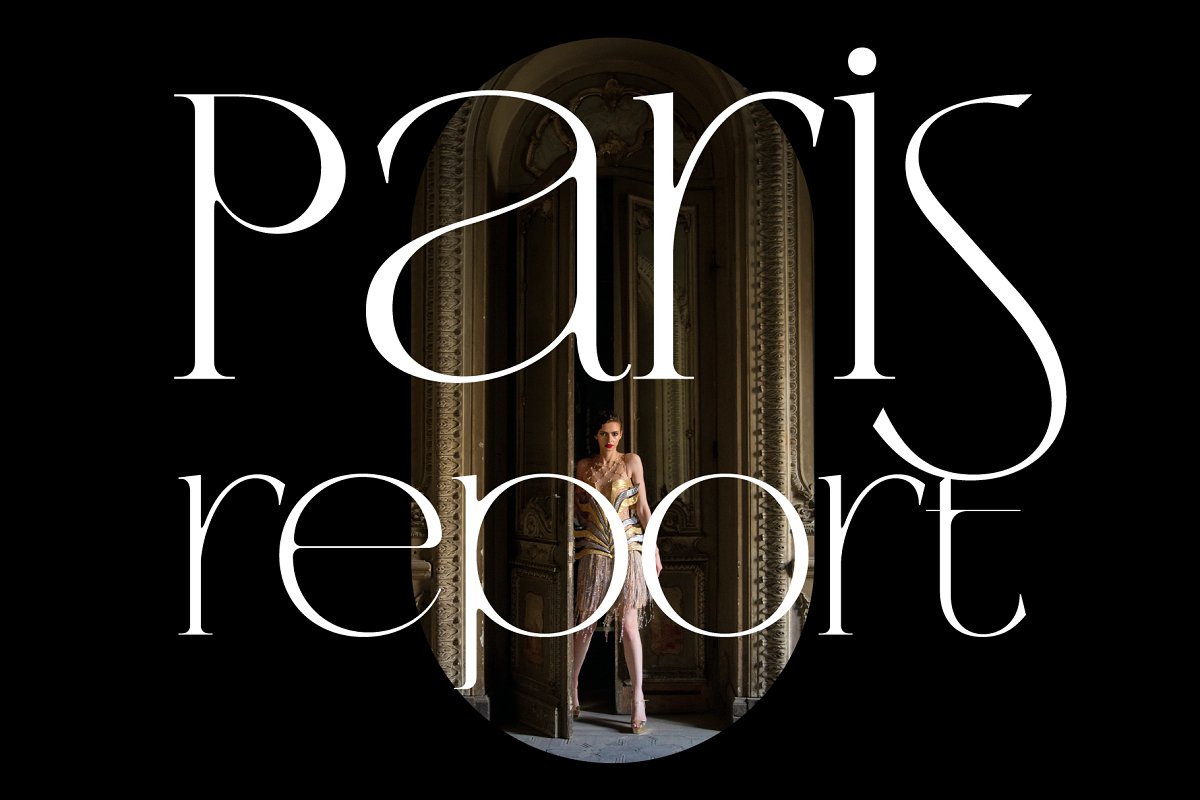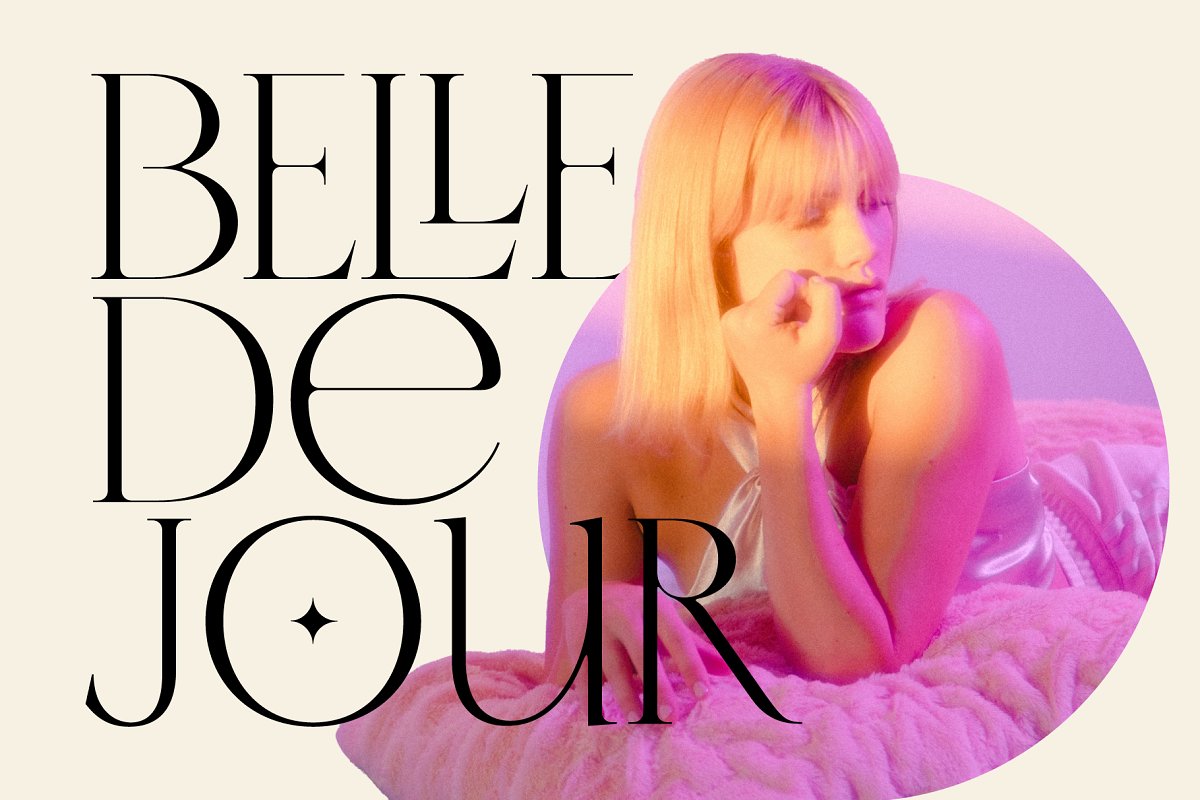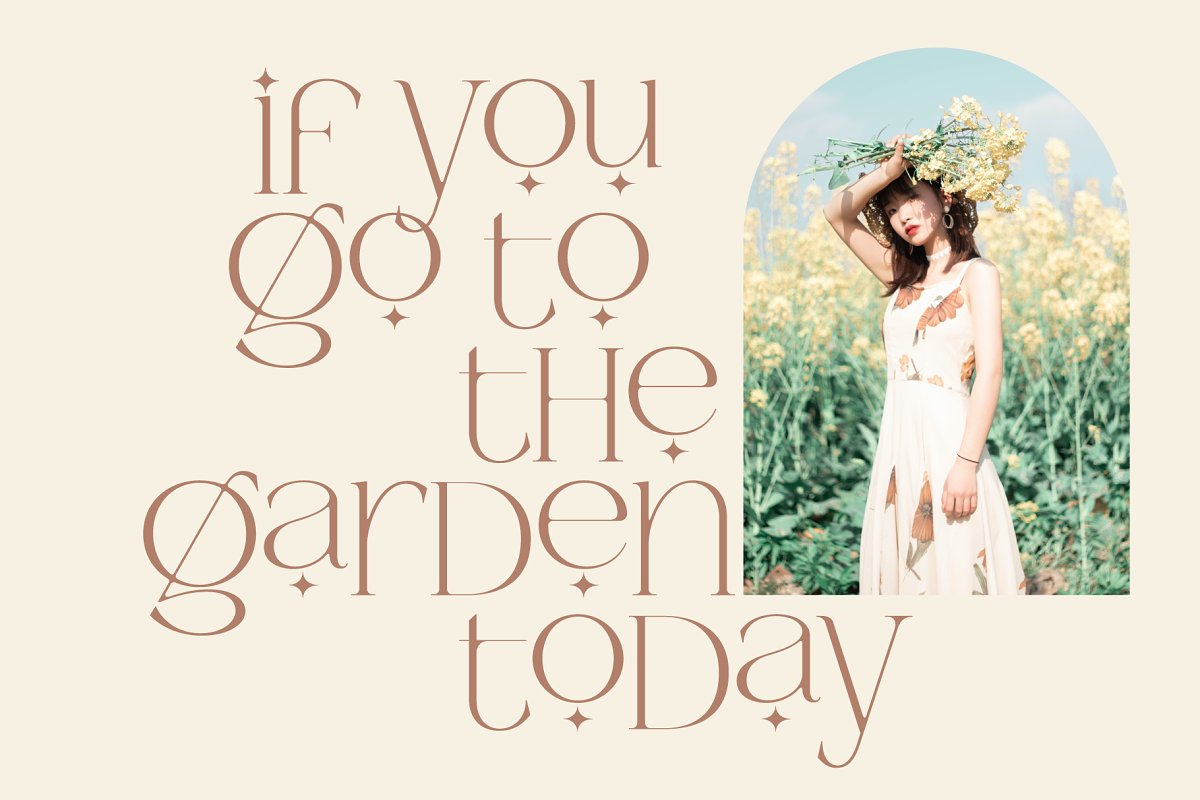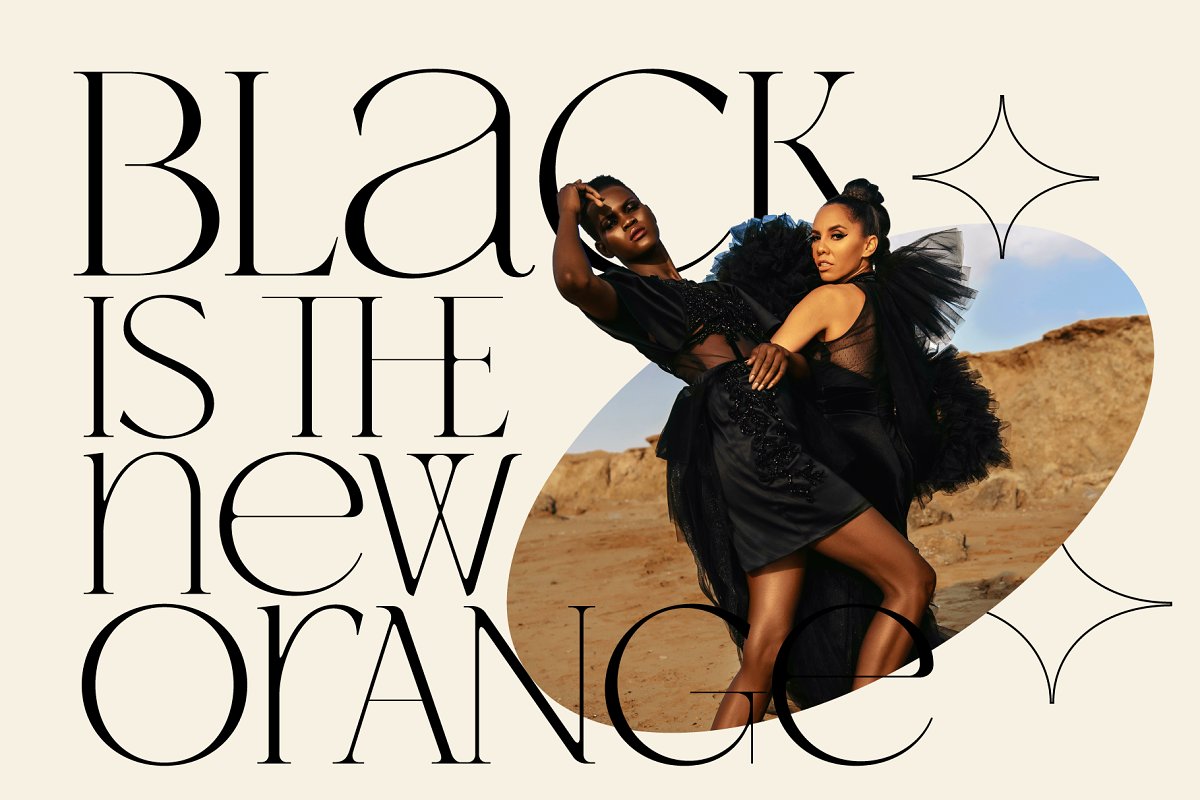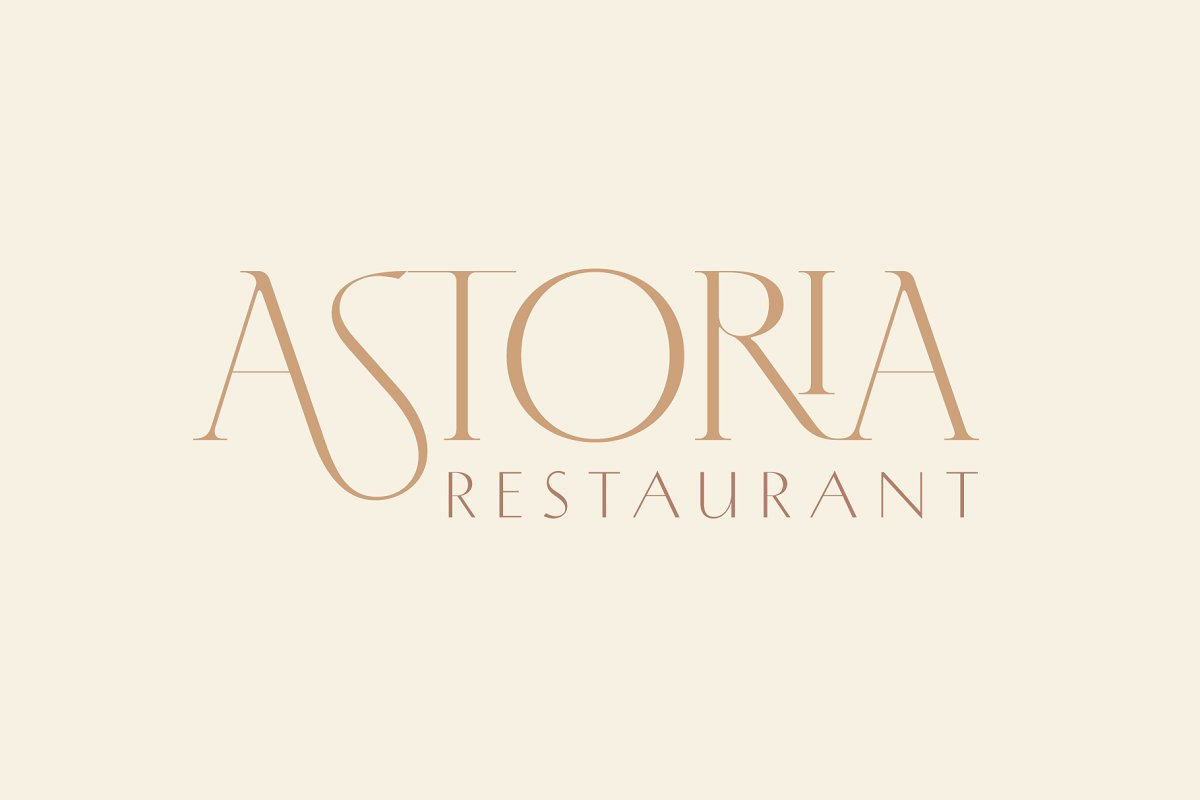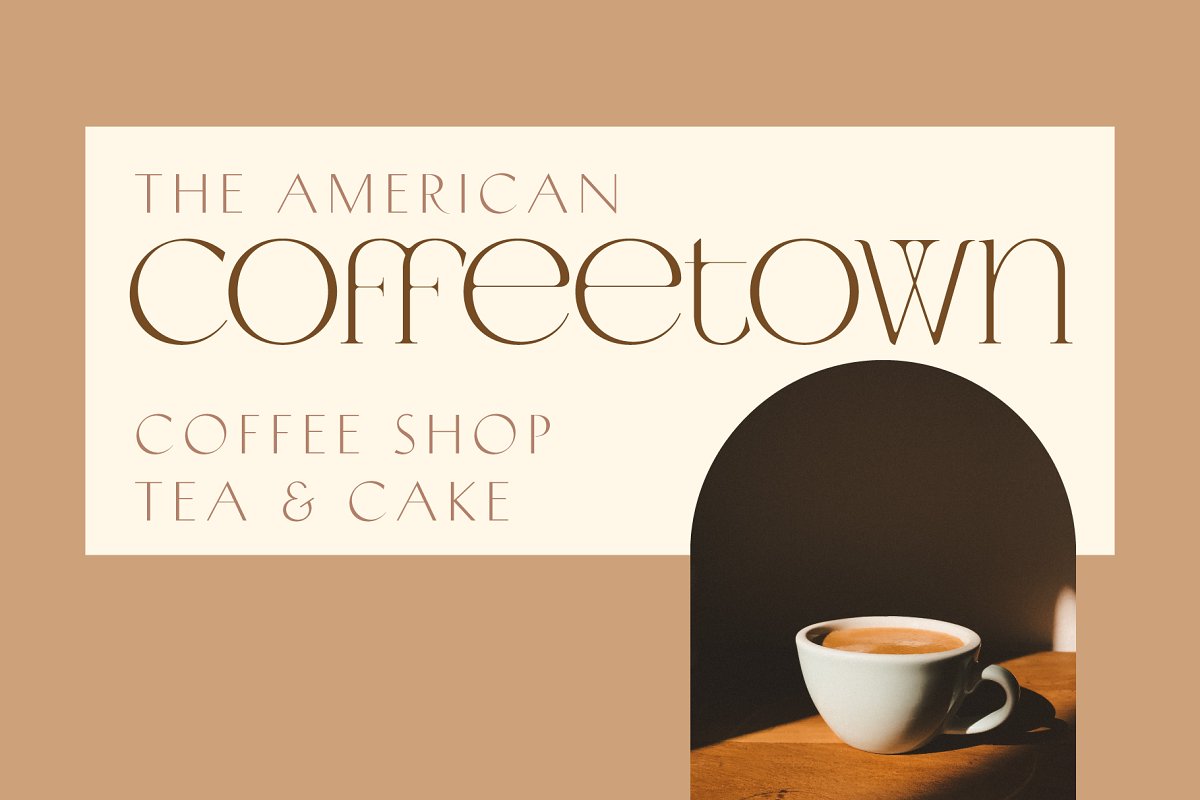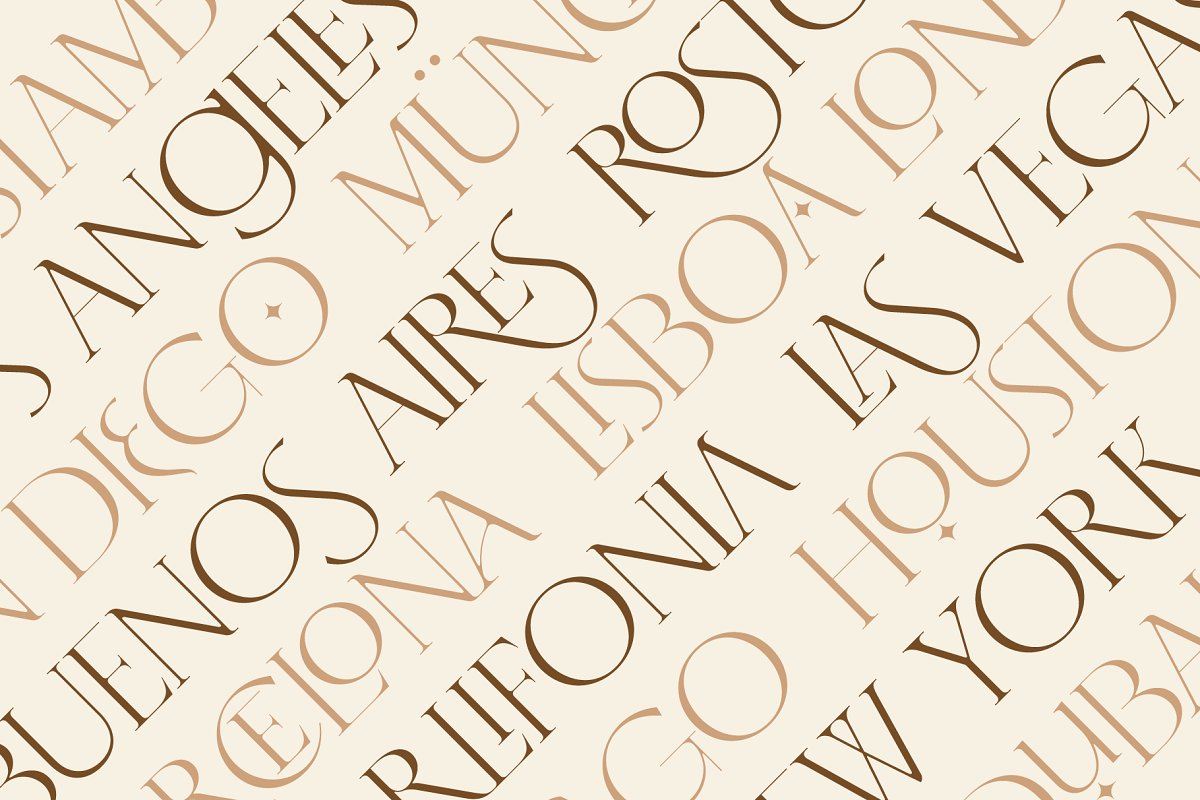
About the Mirabela Lovely Classy Serif Font
Mirabela is a lovely and classy serif font, She has mixed uppercase and lowercase letters that share the same height and allows infinite combinations to give your project a unique style, Mirabela is equipped with a variety of OpenType features to give you all you need for great design: various sets of alternates, standard and discretionary ligatures
Mirabela is very suitable for posters, packaging, branding, logotype, headlines, titles and editorial design, OpenType features are application-dependent and not all existing software supports them (notably Silhouette Studio, Cricut, CanvasWorkspace)